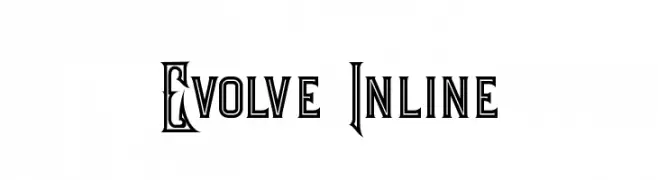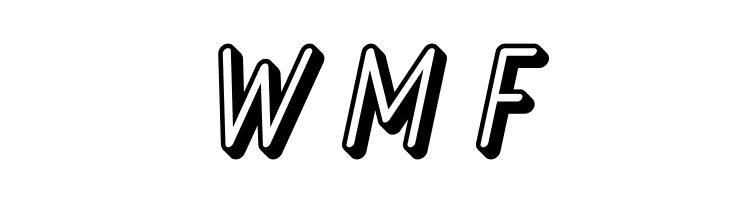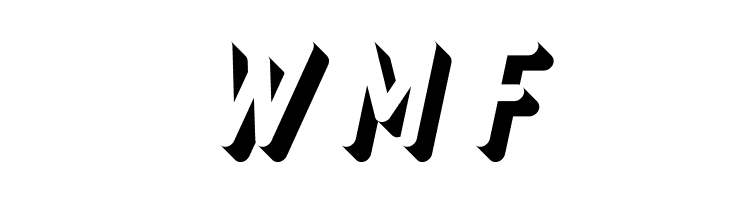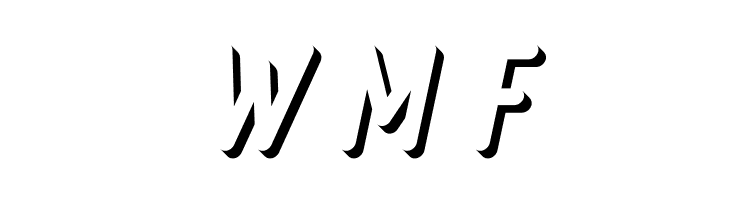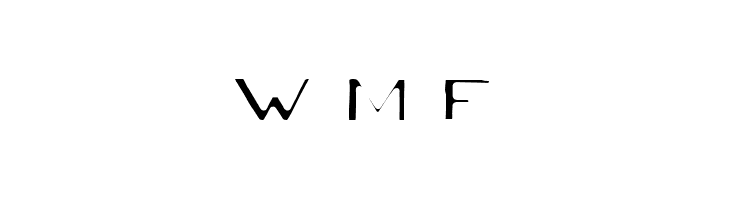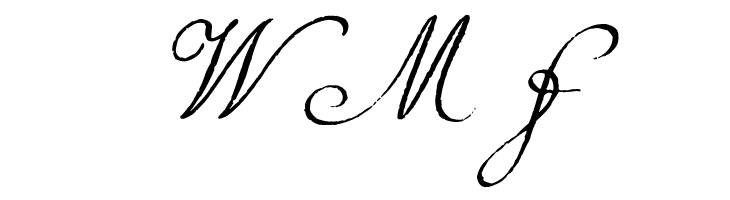
( Levi Szekeres - www.loremipsum.ro )
A bold, italicized font with a 3D shadow effect, perfect for dynamic and modern designs.
( Levi Szekeres - www.loremipsum.ro )
A bold, 3D-effect font with slanted, dynamic characters.
( Levi Szekeres - www.loremipsum.ro )
A bold, slanted font with a 3D effect and dynamic style.
( Peter Olexa - www.dealjumbo.com )
A bold, decorative font with intricate inline details and a modern vintage style.
( Pizzadude - Jakob Fischer - www.pizzadude.dk/ )
A textured, hand-drawn font with a bold, artistic style.
( Roman Paslavskiy - creativemarket.com/seveniwe )
A modern, artistic font with thin lines and unique cutouts.
( Vladimir Nikolic - www.coroflot.com/vladimirnikolic )
A lively decorative font made of cartoon characters in unique poses.
( Vladimir Nikolic - www.coroflot.com/vladimirnikolic )
A bold, textured font with a vintage, industrial style.
( Vladimir Nikolic - www.coroflot.com/vladimirnikolic )
A bold, italicized font with a distressed, vintage texture.
( imagex - www.imagex-fonts.com )
An elegant script font with intricate swirls and flourishes.